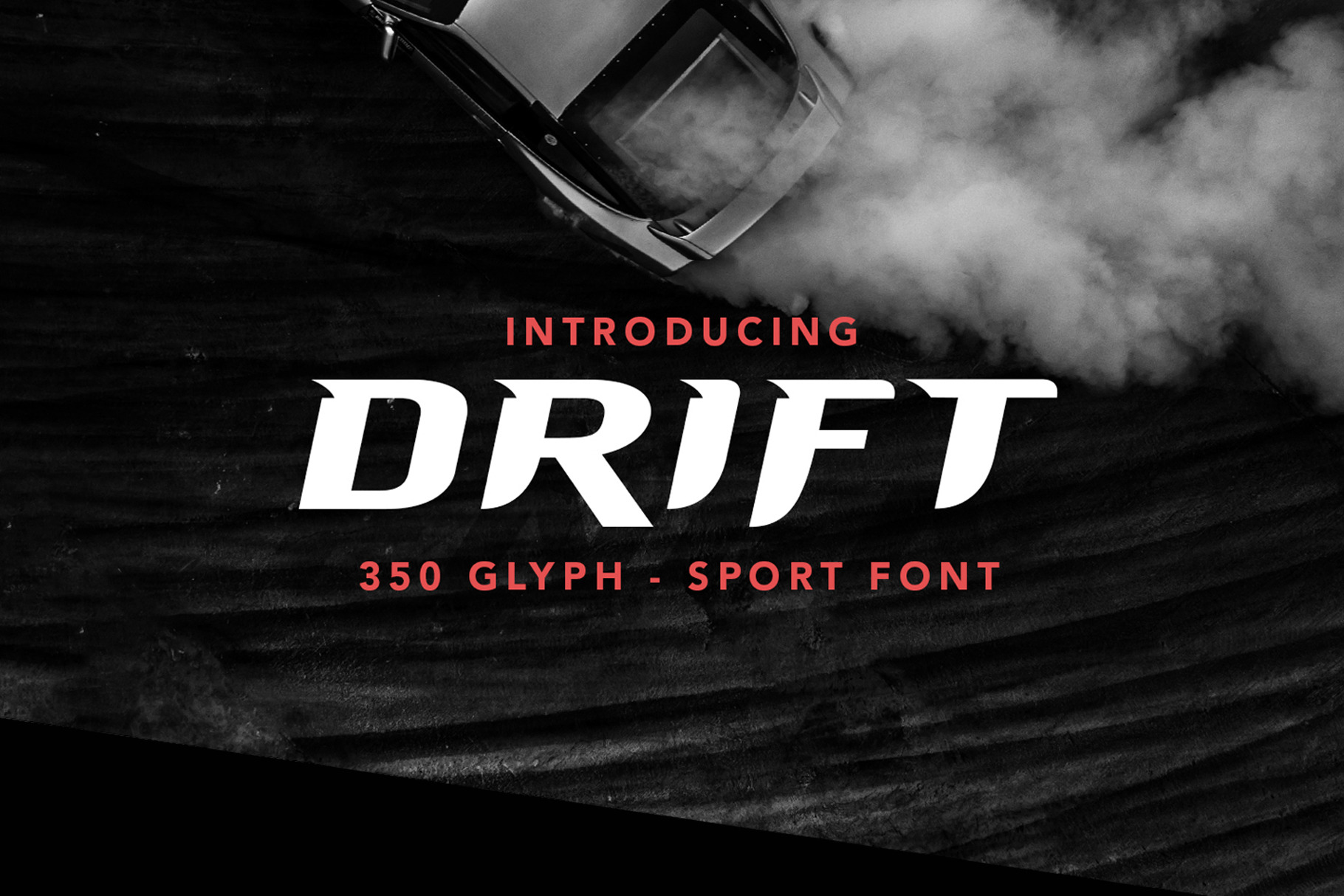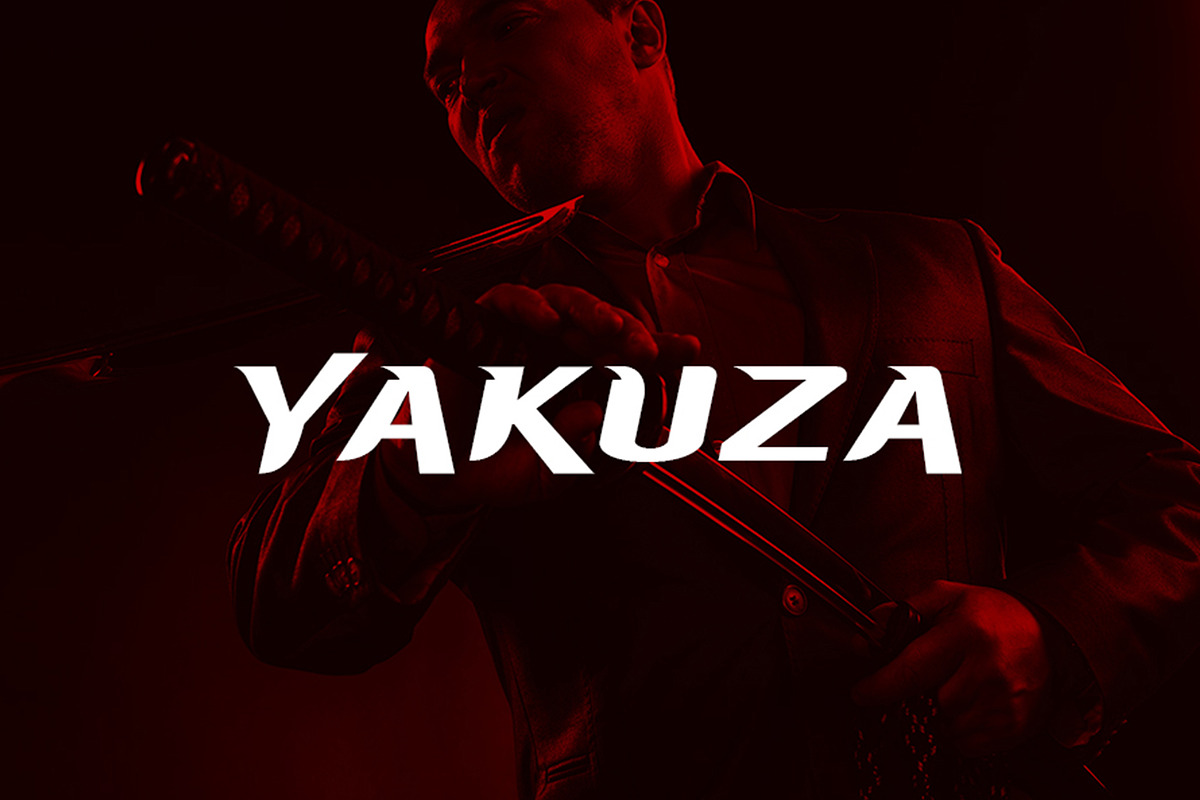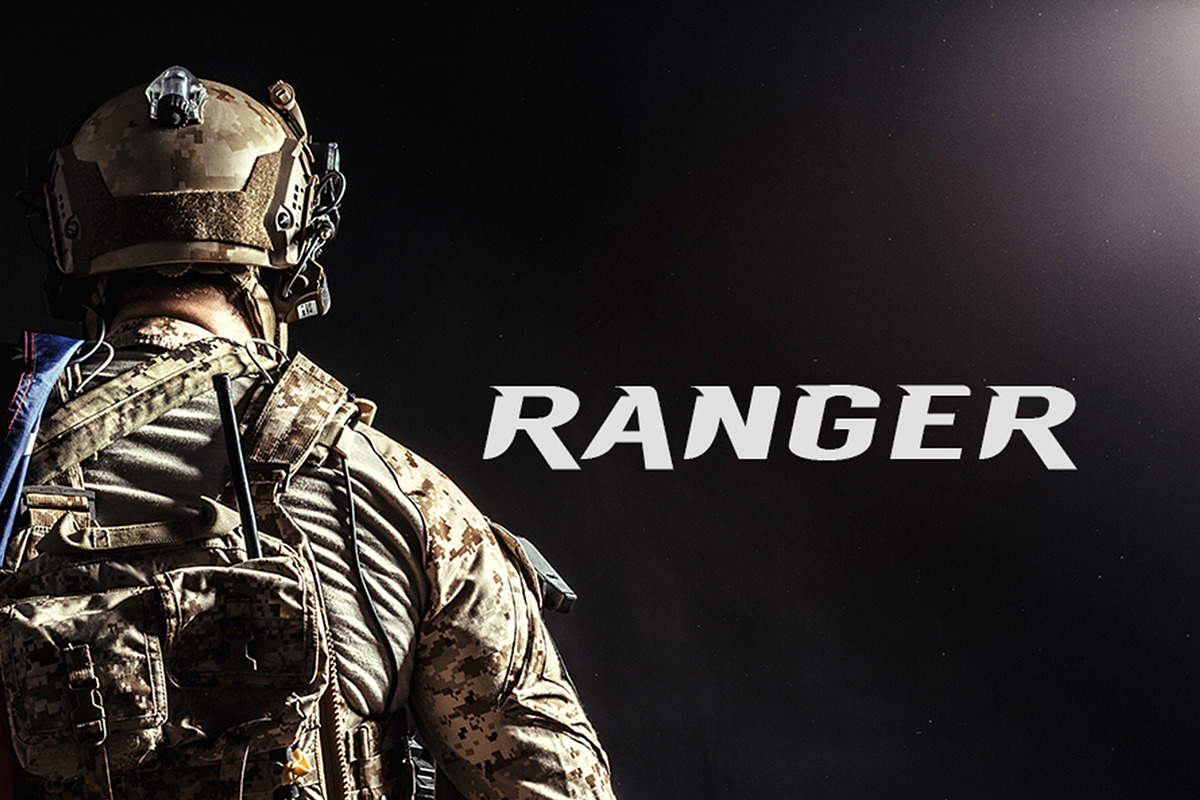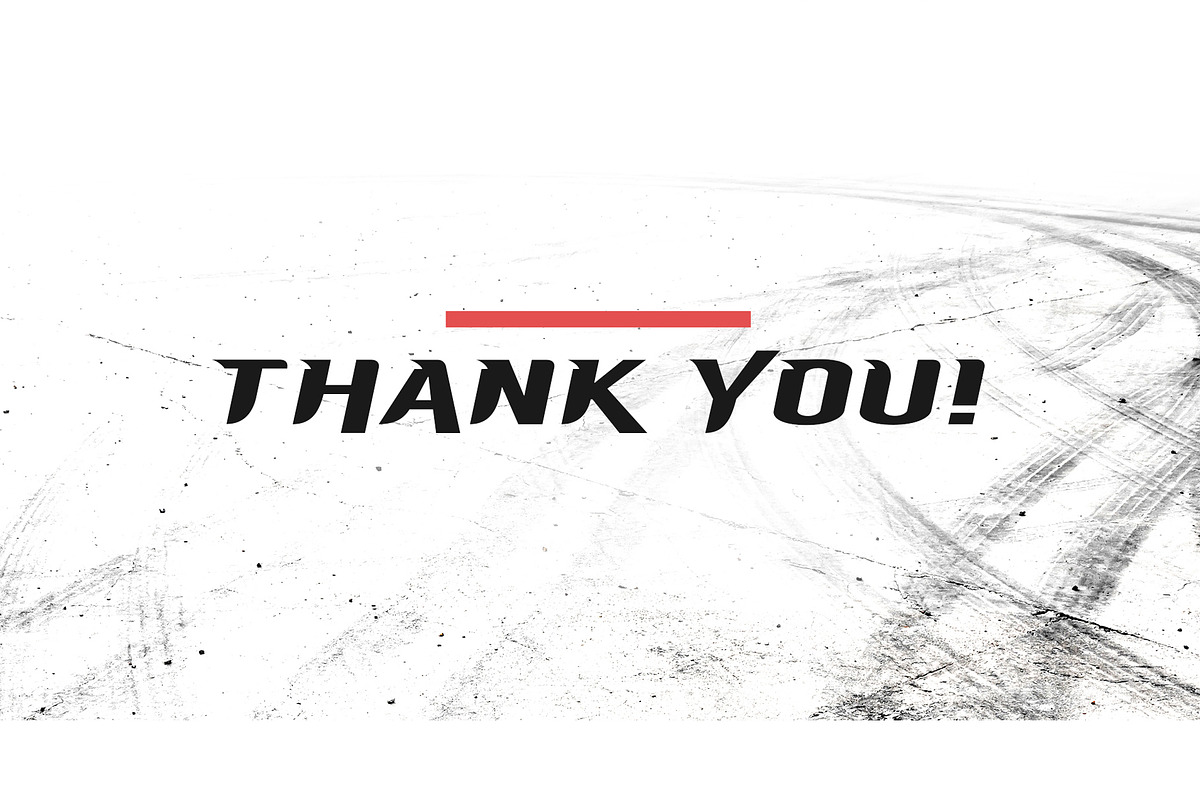
Drift Typeface
Drift is a futuristic and bold sport font with 350 glyphs.
Inspired by drift racing originating in Japan, this font displays speed, angle, and showmanship. Drift Typeface is versatile and perfect for any design (Logo Design, Sports Design, Team Brand Identities, Video Editing, Jersey Design, Flyers, Posters, Headlines, Performance Products, etc.)
Multiple Languages Supported!
Uppercase, Lowercase/Alt Letters, Multi Language Glyphs, Numbers, Symbols, and Punctuation included.